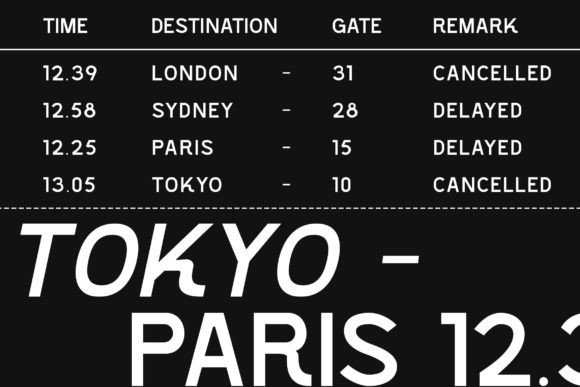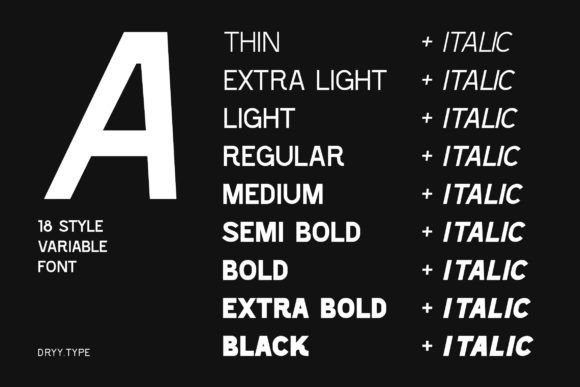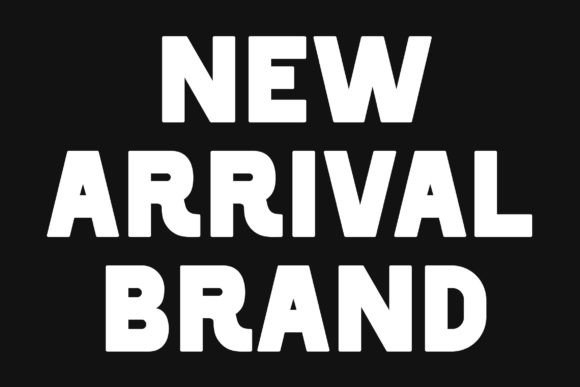
Introduction to Shackle Font
Shackle is a modern and attractive sans-serif font, designed to capture the essence of simplicity and elegance.
With its clean and bold design, this font exudes professionalism and style, making it perfect for branding, web design, and other modern projects Its versatile nature and timeless appeal make it a go-to choice for any designer looking to create a modern and attractive look.